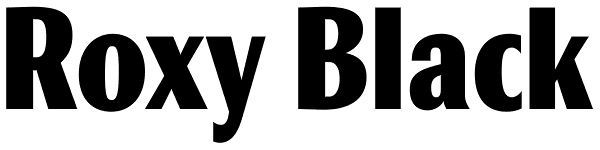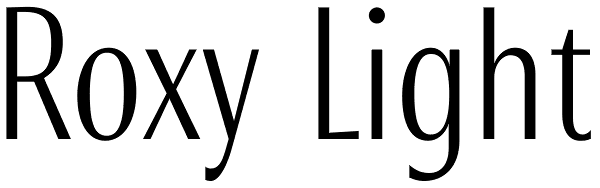
Roxy
Impressed with the strength and the clarity of John Downer’s personal “thick/thin” signwriting style, a fitness magazine commissioned a single weight of Roxy in 1990 to stress its headlines. Mildly compact widths and moderate contrast in the...